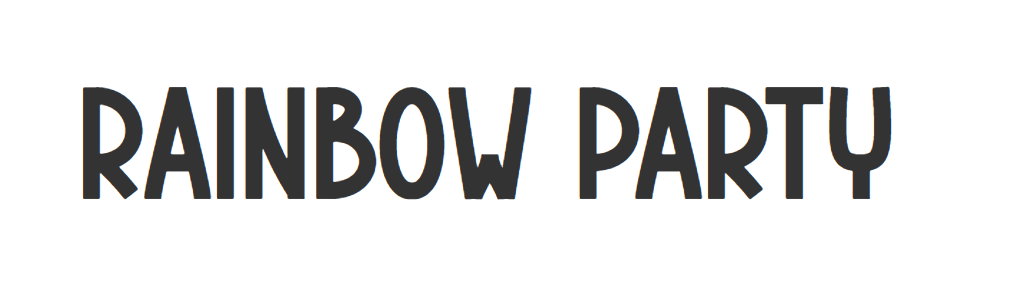
Rainbow Party Font is a real winner among the designs which are playful and vibrant. This decorative typeface is not only stylish but also filled with charm and originality, establishing the perfect mood for projects requiring a bit of joy and energy.
Performing creativity at its best and creating fun by leveraging technology with Rainbow Party Font, every party invitation, child-friendly product, or festive banner designed will be as playful as it can be. Rainbow Party Font is the “”external flame”” that zooms past all other styles with its uniqueness, grabbing attention at first sight and setting the background for a celebration.
Rainbow Party Font is an entity of fun and festivity enclosed in letters, not just a typeface. This font’s whimsical and bold style can make the dull designs come alive and are sure to stand out in any crowd. Whether it is for a seasoned designer or a beginner, including Rainbow Party Font in your projects surely will infuse it with a little personality and vibrancy.
What Is Rainbow Party Font?
Rainbow Party Font is a decorative display typeface that is created with the aim of bringing about a sense of happiness and fun to art projects. Its characteristic bold design and thick, slightly condensed characters manage to express a kind of festive mood.
Whether the user has to prepare for a birthday party or a styling product embedded with the kind of font meant for children, this font can be used with almost everything and in any case, the added effect of cheerfulness and interactive design will be there.
Features of Rainbow Party Font:
- Playful and Whimsical Design: Lighthearted and celebratory, perfect for spreading joy and creativity.
- Bold, Thick Characters: Decorative yet easy to read, ensuring both functionality and visual appeal.
- Slightly Condensed Style: Space-saving design without sacrificing readability, ideal for banners and labels.
- Versatility Across Themes: Fits a variety of playful and energetic designs, including children’s and festive projects.
- Great for Highlights: Perfect for headlines and titles where the text needs to stand out.
Applications of Rainbow Party Font:
- Party Invitations: Adds excitement and fun to designs for birthdays, baby showers, and festive events.
- Children’s Books & Materials: Perfect for headlines and visuals in children’s books, coloring pages, and educational content.
- Event Banners & Posters: Captures attention with a festive mood for carnivals, school events, and holidays.
- Branding for Kids’ Products: Enhances packaging, logos, and promotional materials for toys and child-friendly brands.
- Digital Content: Ideal for vibrant social media posts, YouTube thumbnails, and website banners.
- DIY Craft Projects: Adds a playful and personalized touch to handmade cards and scrapbooks.
- Festive Merchandise: Perfect for mugs, t-shirts, and keepsakes for special occasions like birthdays or holidays.
Conclusion:
The Rainbow Party Font is a vibrant, fun-filled typeface that breathes life into any design. Its playful design, bold characters, and versatility make it an essential tool for projects that aim to spread joy and capture attention. From party invitations to branding for children’s products, this font fits seamlessly into a variety of creative contexts.